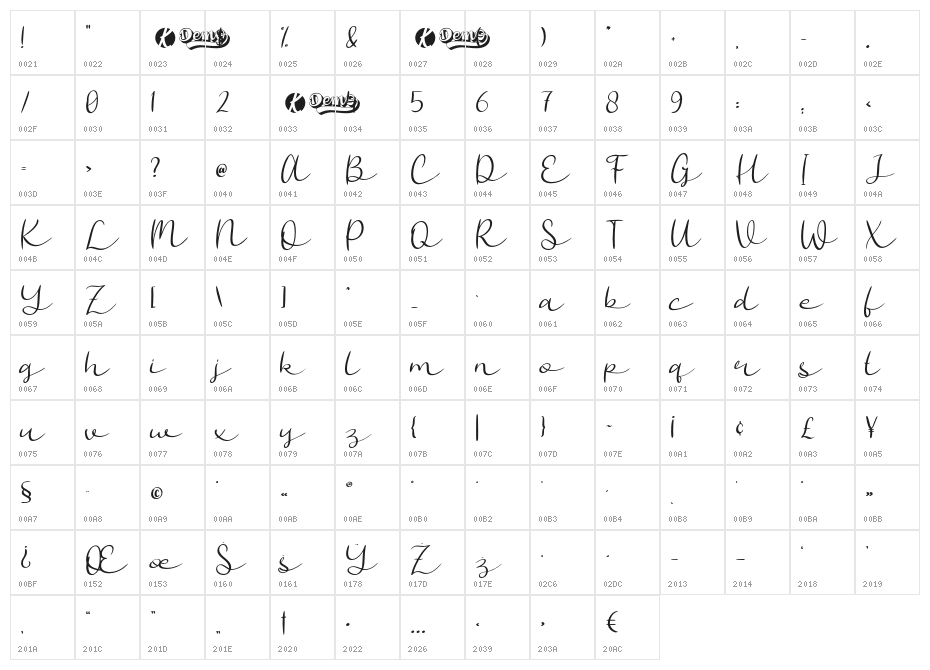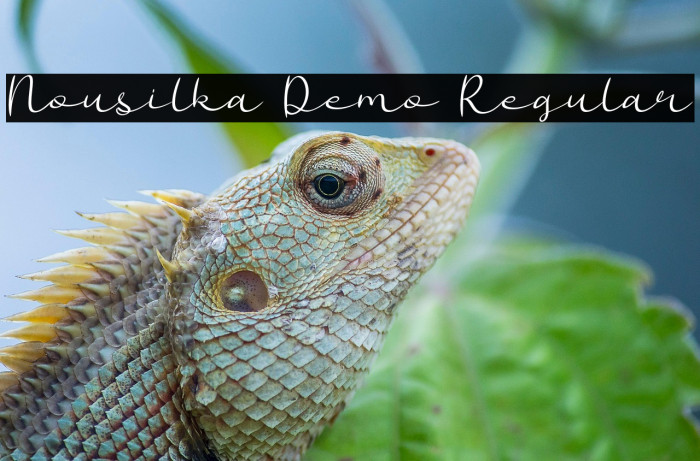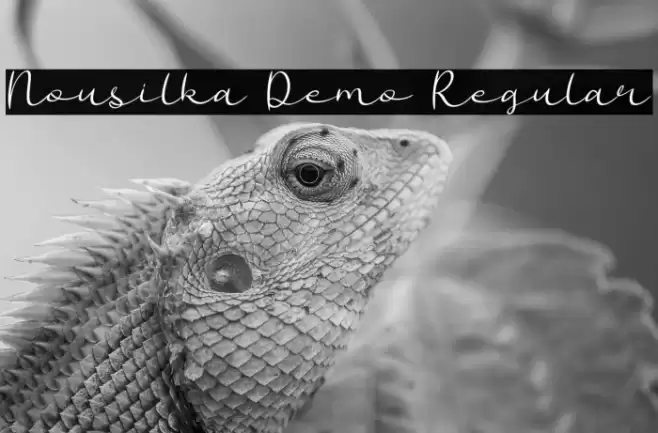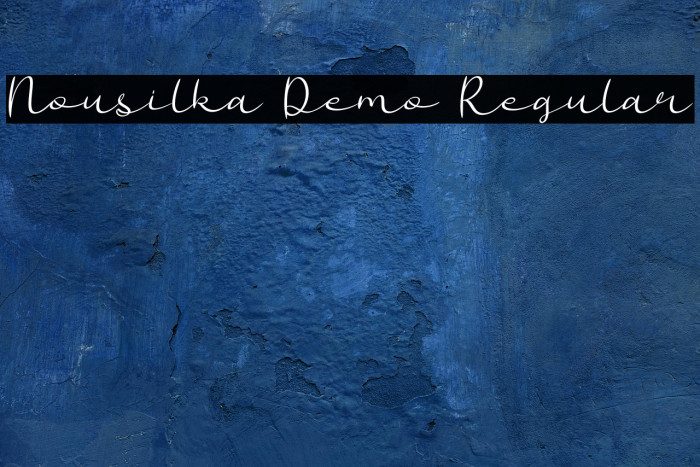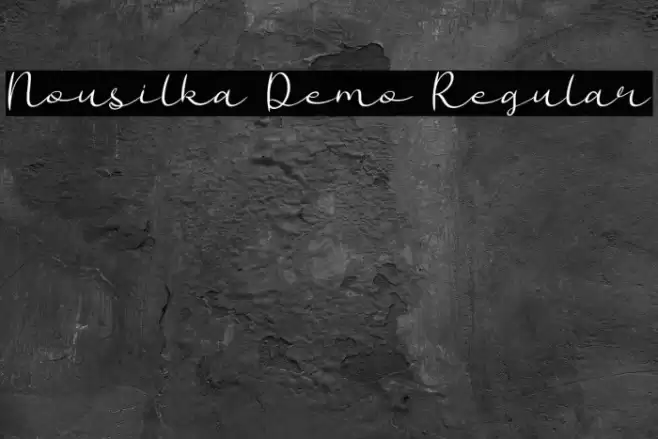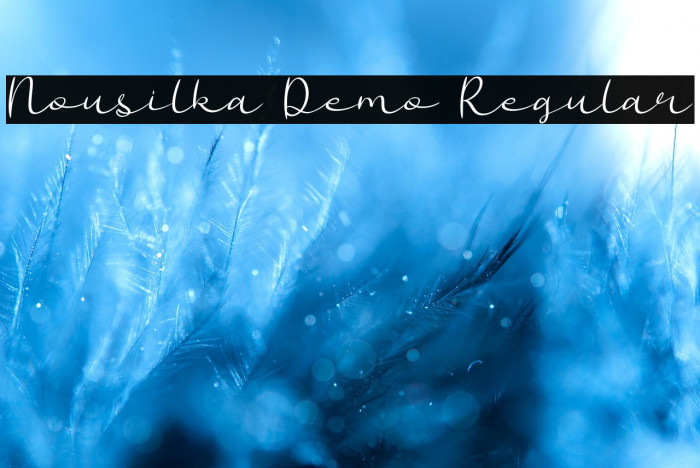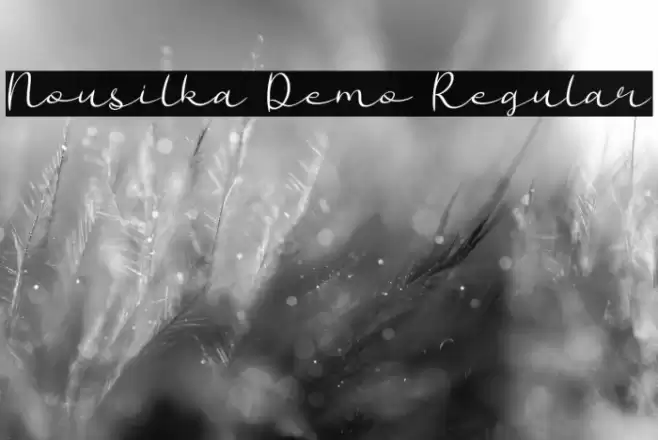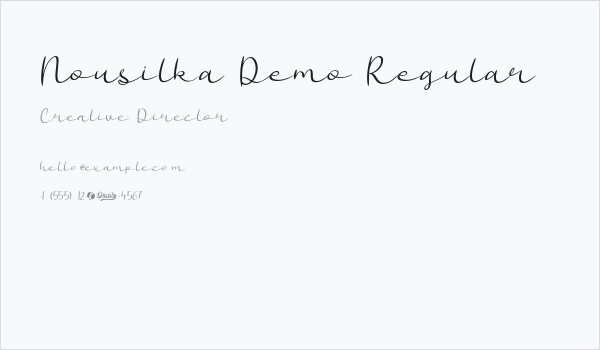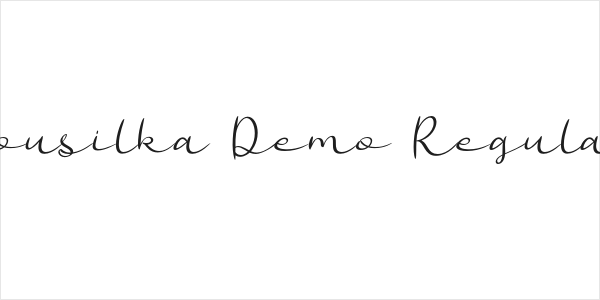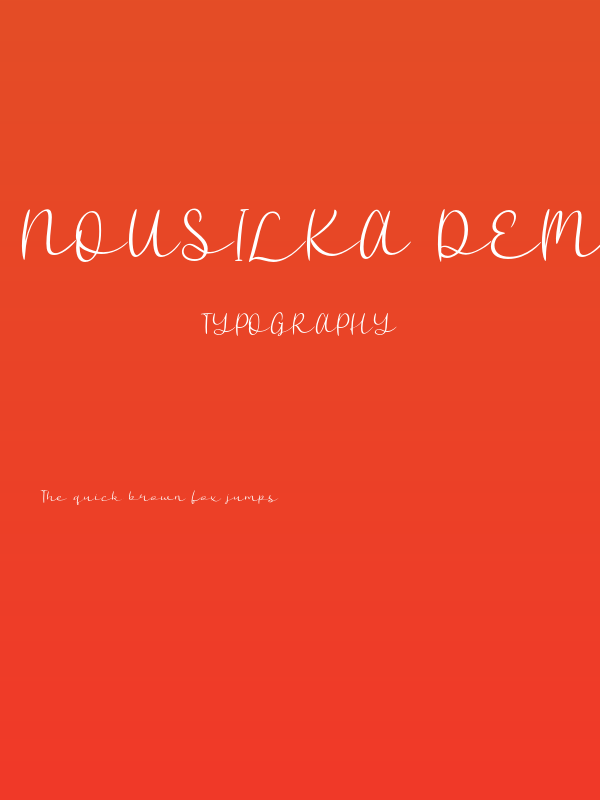
Nousilka Demo Regular Font
Nousilka Demo Regular Description
This font features a flowing, cursive style that exudes elegance and sophistication. The uppercase letters are gracefully connected, while the lowercase letters maintain a consistent, fluid motion. The numerals are stylish and align well with the overall script aesthetic. Special characters are uniquely designed, adding a touch of flair. The font's smooth curves and balanced proportions make it ideal for projects requiring a personal, handwritten touch. Its versatility allows it to be used in various contexts, from formal invitations to creative branding.
| Overall Style | Elegant, Handwritten |
| Use Case | Logos, Invitations, Decorative text |
| Proposed Projects | Ideal for wedding invitations, greeting cards, branding, and logo design. |